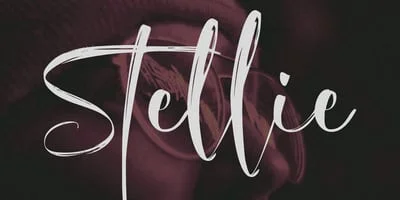
Stellie Font
The Stellie Font excels in various design applications including celestial observatory branding, stargazing event marketing, astronomical society communications, stellar jewelry packaging, cosmic-themed wellness centers, planetarium exhibition materials, astronomical photography promotions, stellar baby boutique identities, cosmic art gallery signage, and luminous celestial projects that demand stellar elegance and astronomical sophistication.
What makes the Stellie Font exciting is its enchanting embodiment of stellar beauty and cosmic wonder through letterforms that capture the essence of twinkling starlight and the magical allure of celestial phenomena. This typeface demonstrates exceptional luminosity through carefully crafted characters that suggest the gentle sparkle of distant stars, the infinite mystery of cosmic space, and the ethereal beauty that makes astronomical observation so profoundly inspiring and spiritually uplifting. The font's stellar personality makes it perfect for astronomical organizations and celestial-themed brands seeking to communicate cosmic authenticity, stellar wonder, and the kind of luminous beauty that creates memorable stargazing experiences through typography that literally shines with stellar radiance.
The Stellie Font family typically includes luminous weight variations that enhance the stellar aesthetic, featuring celestial styling options and extended character sets optimized for astronomical communications and cosmic applications. These family options often include star-inspired alternates, astronomical symbols, and celestial decorative elements that provide designers with comprehensive tools for creating authentically stellar typography that celebrates cosmic beauty while maintaining contemporary design appeal and astronomical credibility.
Astronomical professionals and celestial lifestyle brands consistently select Stellie Font for projects requiring typography that communicates stellar authenticity and cosmic sophistication. This typeface delivers exceptional performance in astronomical marketing, celestial branding, and cosmic communications where establishing wonder and creating luminous atmosphere is essential for stargazing engagement. The font's stellar character makes it particularly effective for observatory and jewelry applications. Download Stellie Font today to access this cosmically beautiful typeface that transforms celestial communications with its stellar elegance and astronomical sophistication, creating compelling cosmic experiences that honor the magnificent beauty of stellar phenomena while celebrating the infinite wonder that defines authentic astronomical culture and celestial excellence.